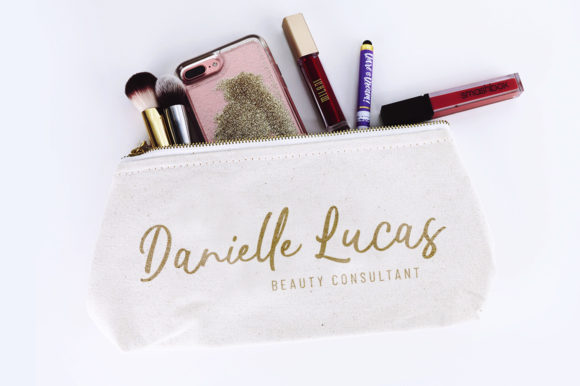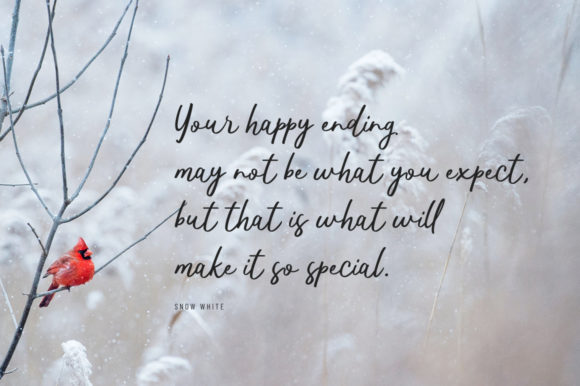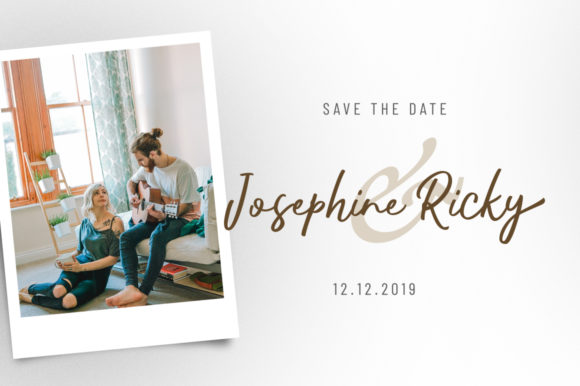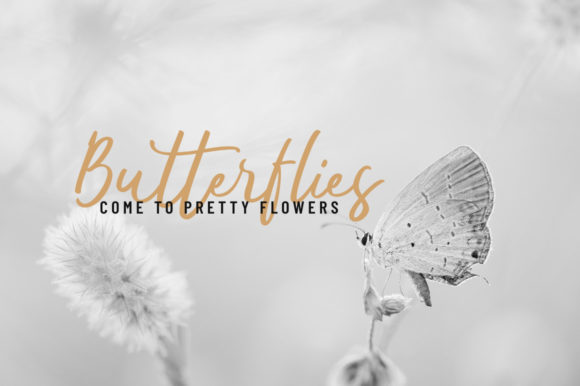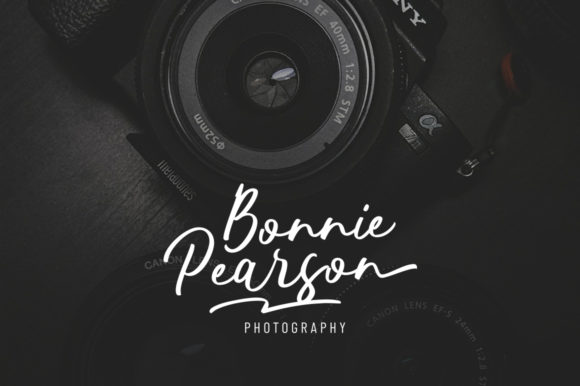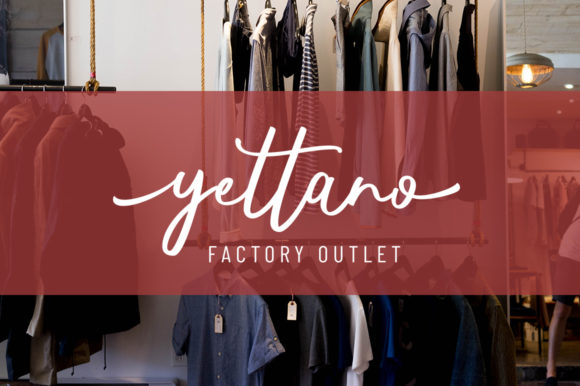
Introduction to Kaftice Font Font
Fonts play a crucial role in design, and the Kaftice Font font is a typeface that brings both character and versatility to any project. Whether you’re working on a branding project, a website, or a print design, the Kaftice Font font offers a unique style that can elevate your work.
Kaftice is a fun and cool handwritten font with a unique style.
Get inspired by its modern simplicity .
Key Features of Kaftice Font Font
Why Choose Kaftice Font Font?
The Kaftice Font font is more than just a typeface – it’s a design tool that helps you communicate your message with style and clarity. Its unique character set and versatile design make it suitable for a wide range of applications, from elegant invitations to bold headlines.
With its carefully crafted letterforms and balanced proportions, the Kaftice Font font ensures readability and visual appeal across all mediums.
What makes Kaftice Font font special?
The Kaftice Font font stands out with its unique design, exceptional readability, and versatility across various design applications.